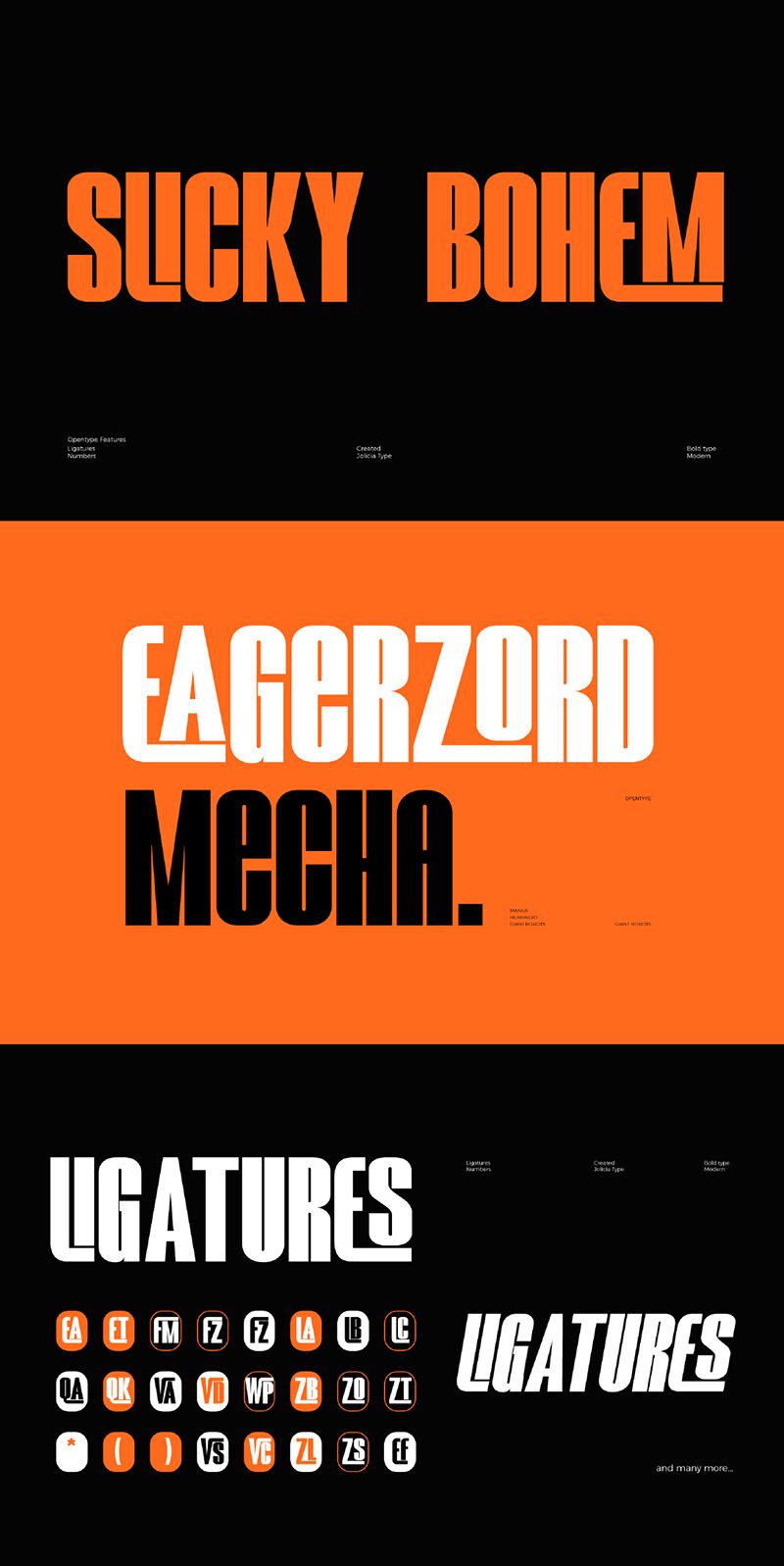
Slicky Bohem font by Jolicia Type Foundry is a condensed sans serif with strong geometric elements. Its bold, industrial design incorporates unique ligatures making it impactful and modernist yet retro-inspired. Perfectly designed for those looking to make their typography stand out in creative projects.